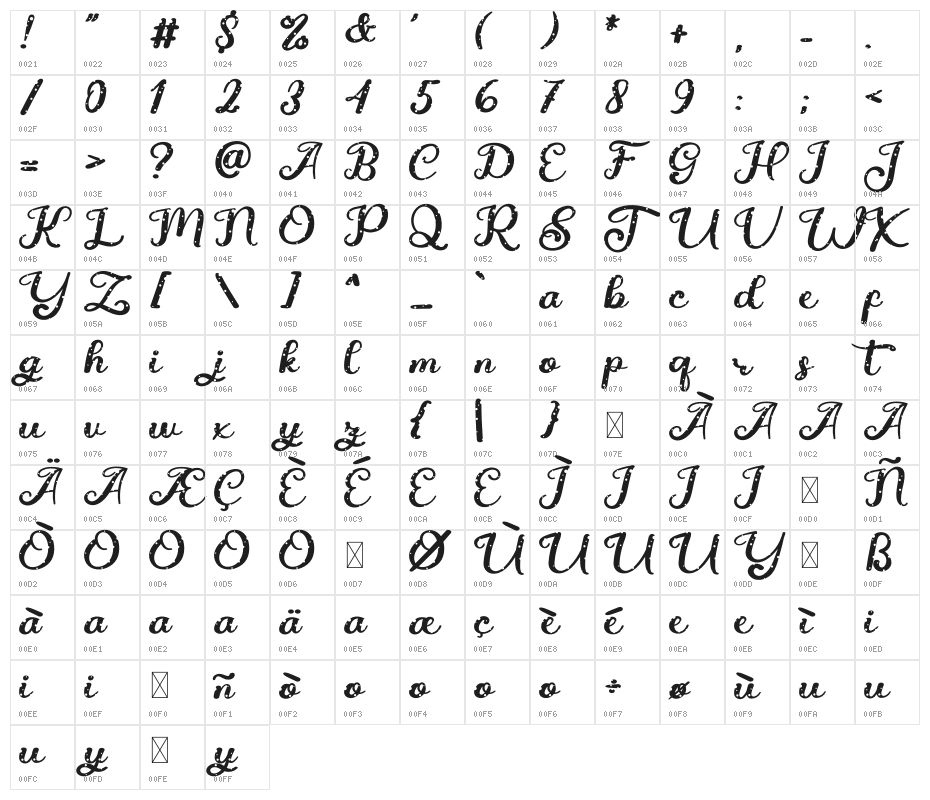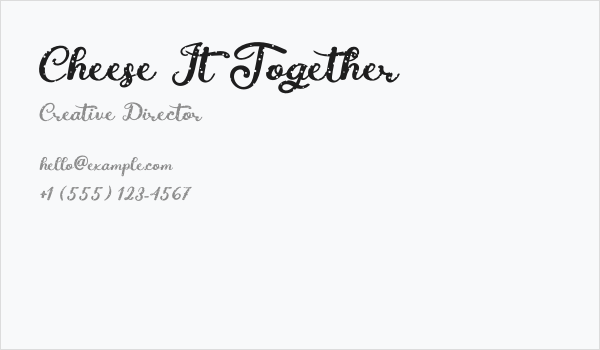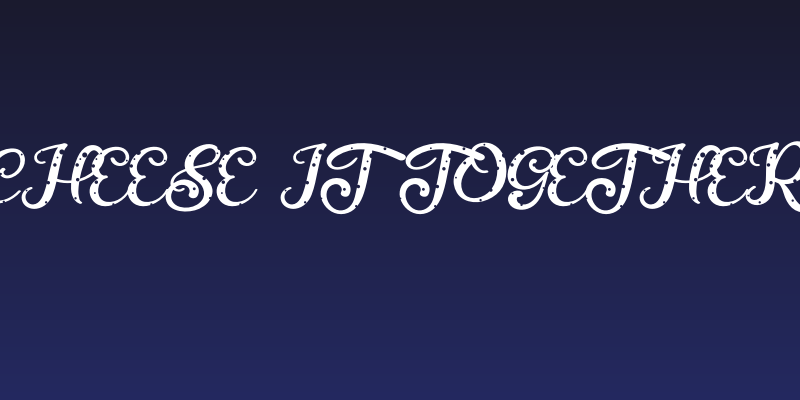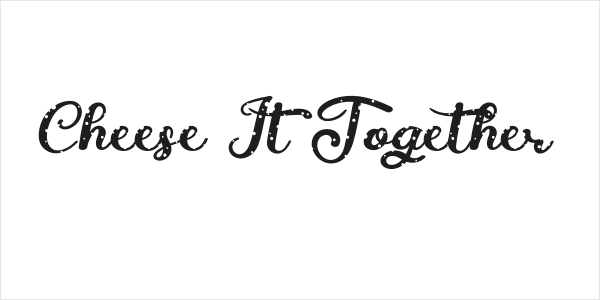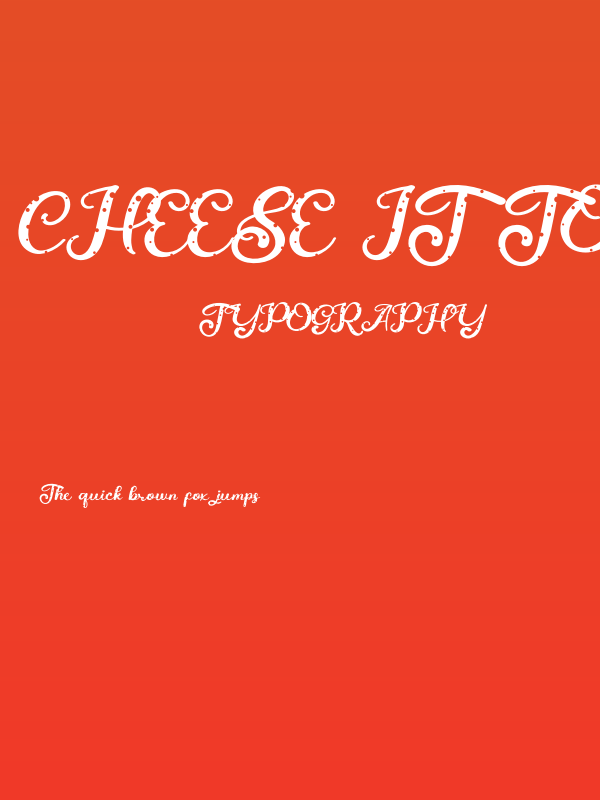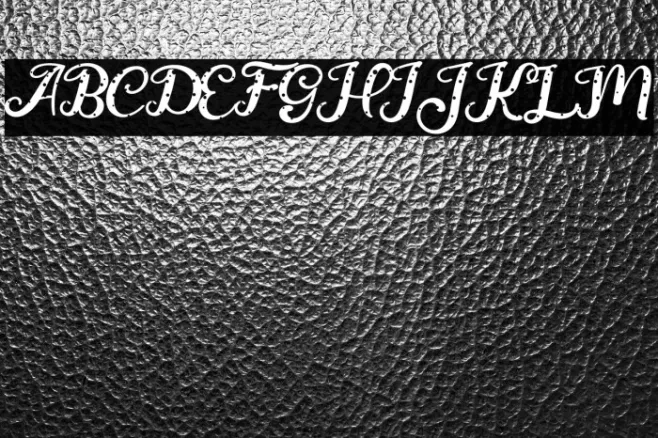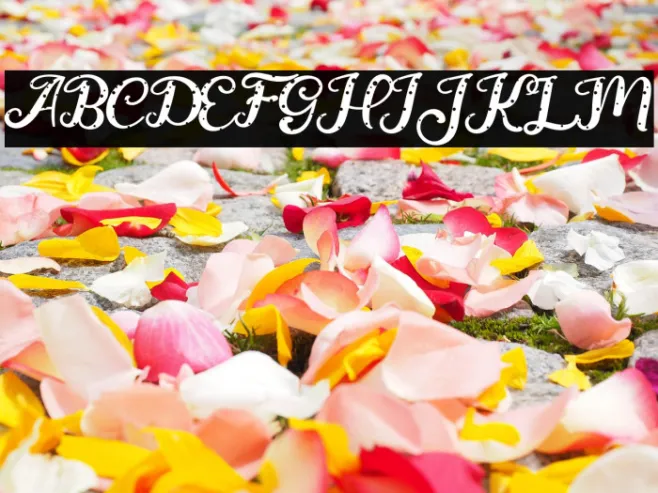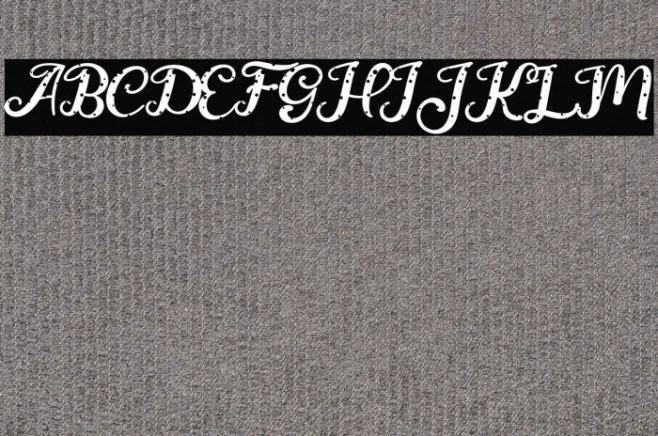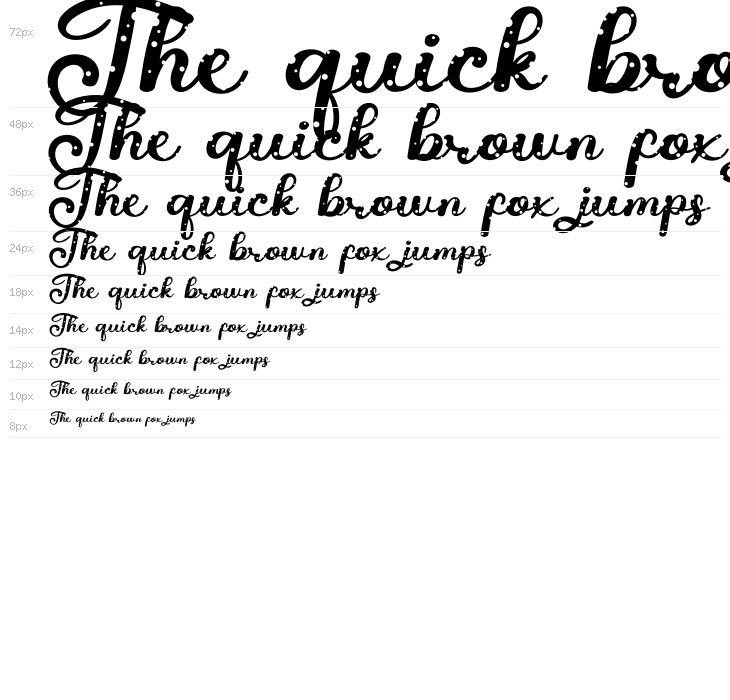
Cheese It Together Font
Cheese It Together Description
This font features a playful and whimsical design, characterized by its script style with decorative elements. Each character is adorned with small, cheese-like holes, adding a unique and fun texture. The strokes are smooth and flowing, giving it a handwritten feel. The uppercase letters are elegantly curved, while the lowercase letters maintain a consistent style, enhancing readability. Numbers and special characters are crafted with the same attention to detail, ensuring a cohesive look across all text. This font is perfect for projects that require a touch of creativity and humor.
| Overall Style | Whimsical |
| Proposed Projects | Ideal for children's books, playful branding, food packaging, and creative invitations. |